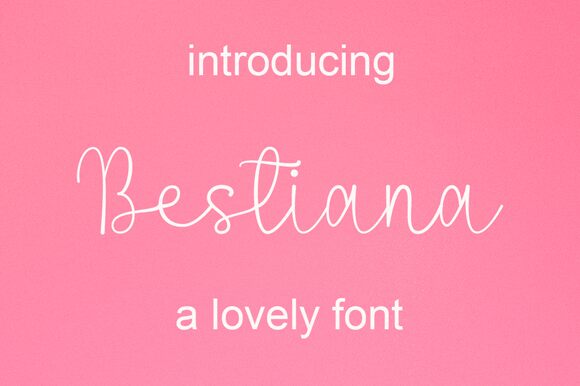
Bestiana font by Cavalera Creative is a carefully crafted handwritten font. With a light weight, it reflects an elegant cursive-inspired nature that highlights expression and modern style. Bringing relaxed mood throughout the text, the letters showcase aesthetic balance by playing with alternating thick and thin lines. The beauty of this free light font remains even at both small and large sizes.
Use Bestiana for creative invitations, greeting cards, custom portraits, business names & logos, book title designs, personalized planners, decorative pillowcases or bags prints, product packaging & labels or even store signage boards. It’s also exceptional for social media graphics such as Instagram posts or Twitter banners or as part of other professional advertising campaigns across media types like TV commercials & magazines ads!